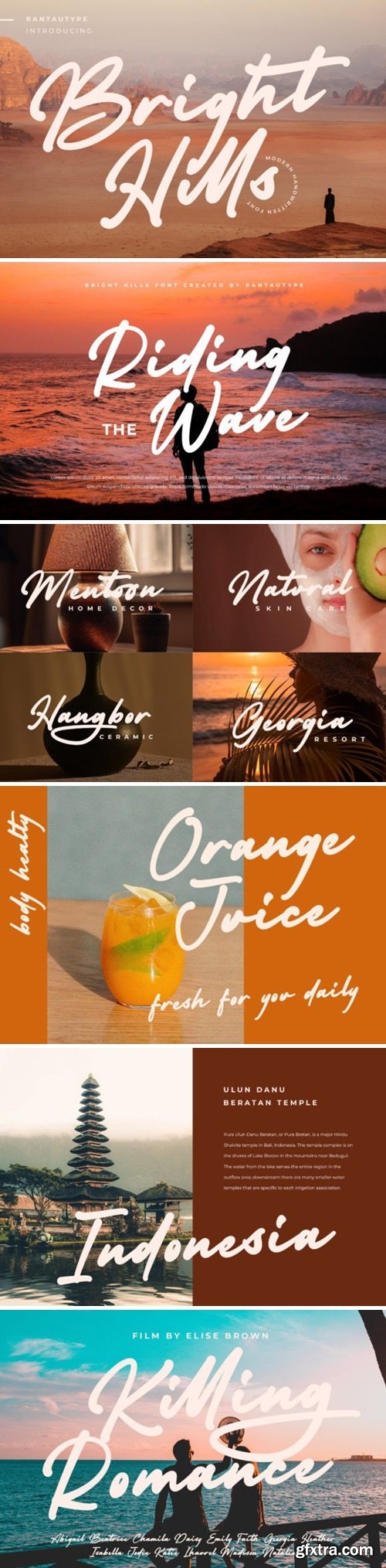
光明高地字体
Bright Hills is a modern style font which can be interpreted professional. It is a great choice for watermark on photography, branding, wedding events, signature or signature logo design, quotes, album covers, magazines, business cards and many other design project.